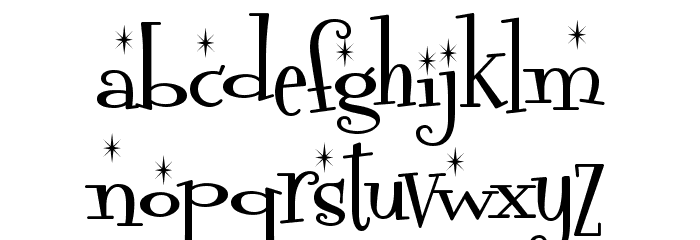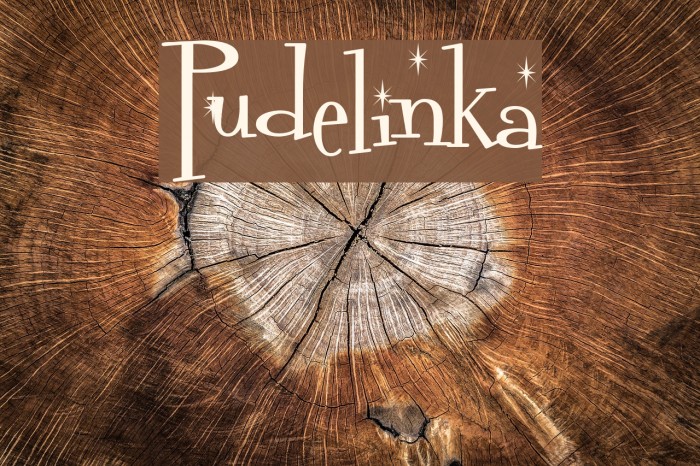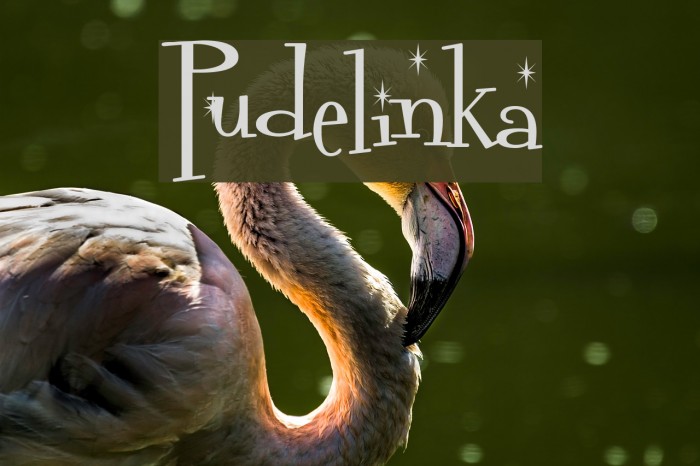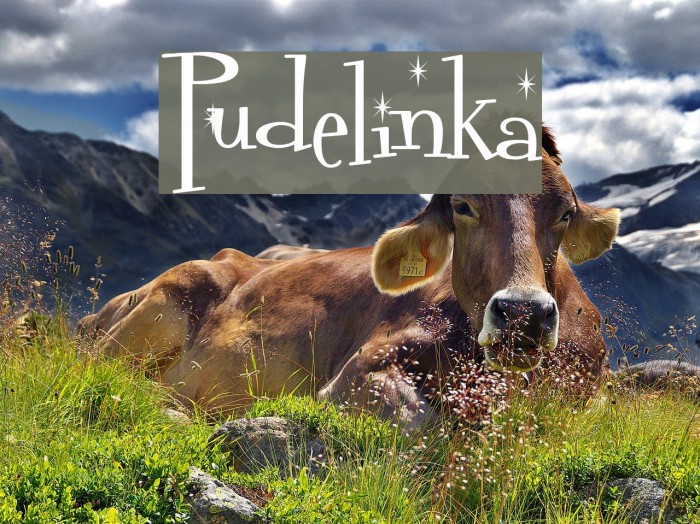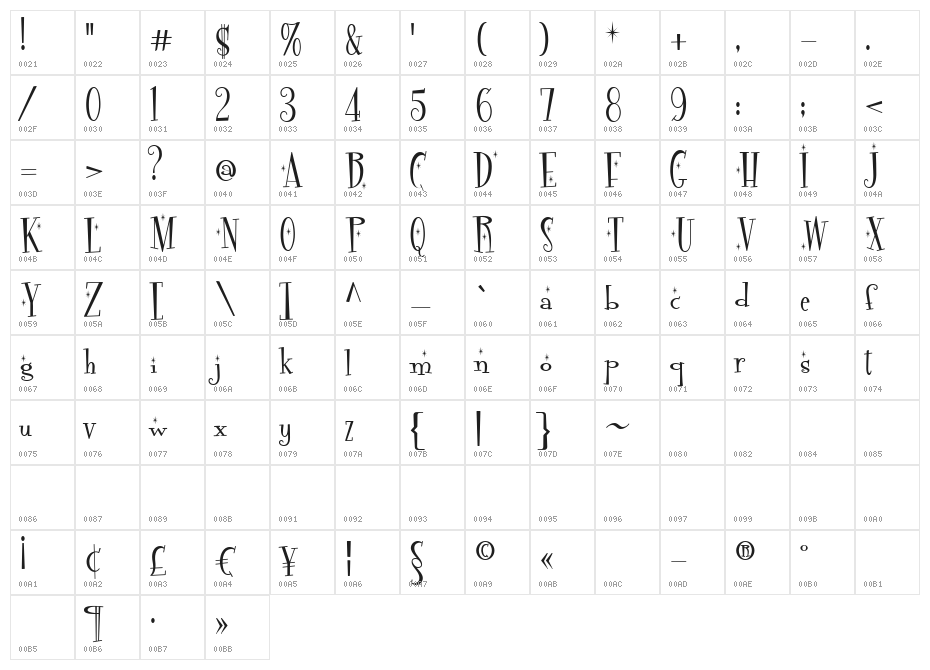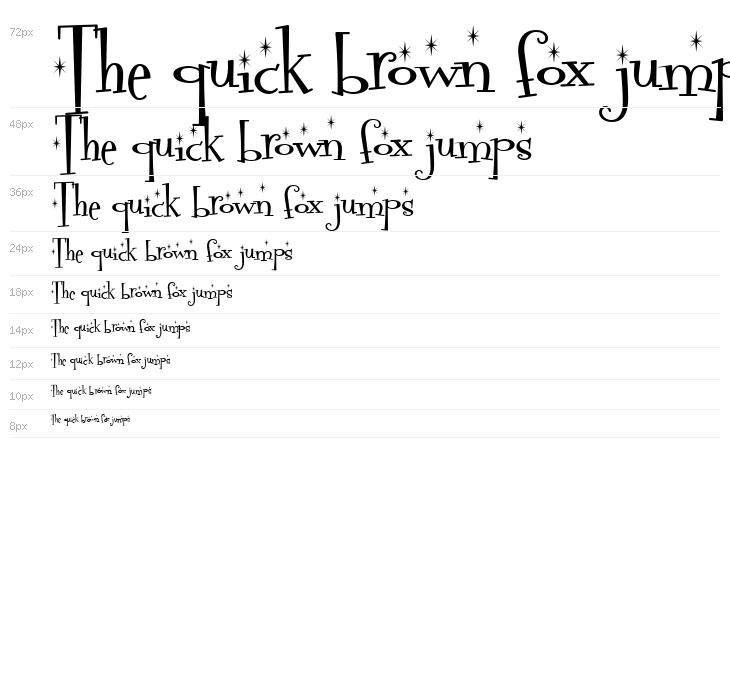
Pudelinka Font
This font features a whimsical and playful design with tall, narrow characters that have a distinct, hand-drawn appearance. The uppercase letters are elongated with exaggerated serifs, giving them a unique, decorative flair. The lowercase letters maintain a similar style, with some characters featuring loops and curls that add to the font's charm. Numbers are consistent with the overall style, maintaining the elongated and narrow form. Special characters are creatively integrated, with some featuring star-like embellishments that enhance the font's playful nature. The overall aesthetic is both quirky and elegant, making it suitable for creative and artistic projects.
A whimsical, decorative font with elongated, narrow characters and playful embellishments.
- Proposed Projects: Ideal for children's books, greeting cards, invitations, and artistic branding projects.